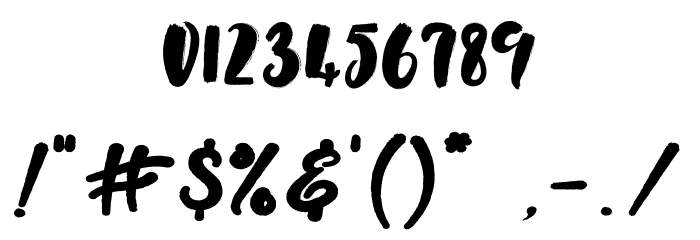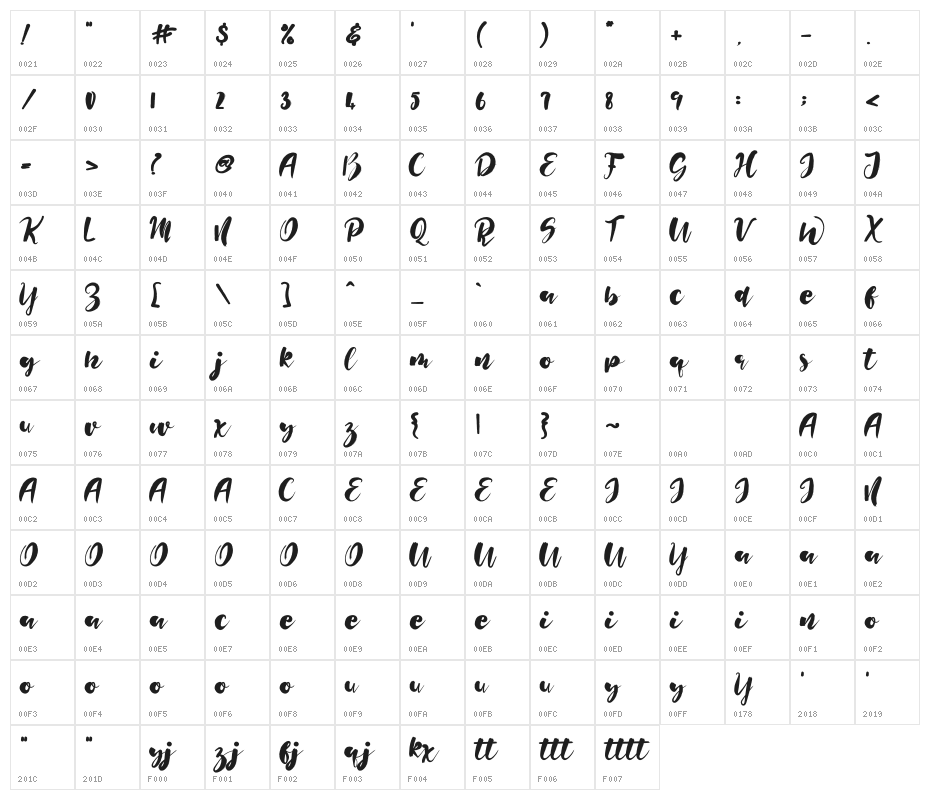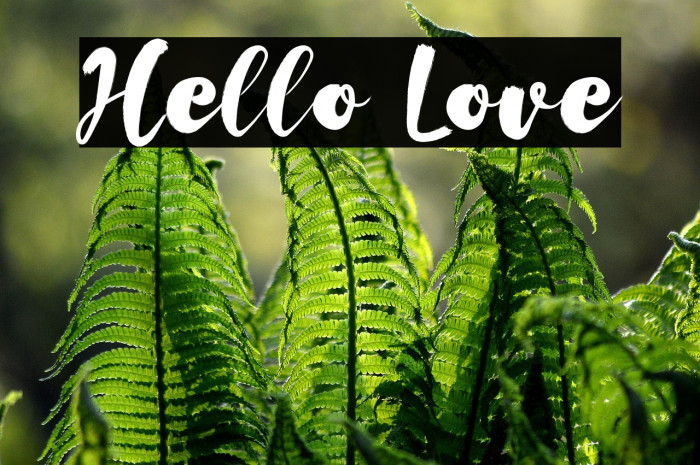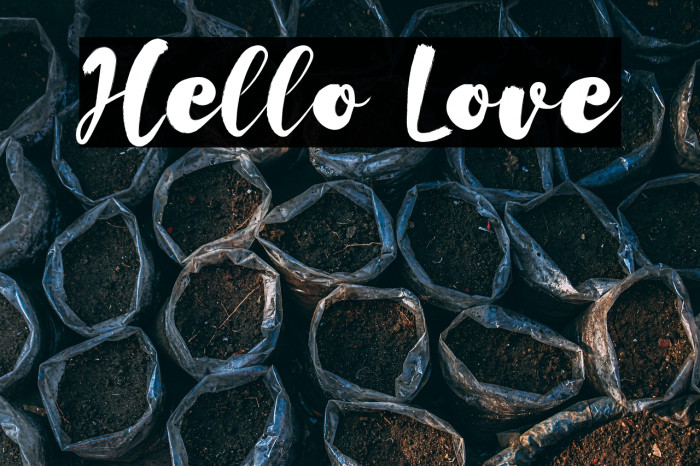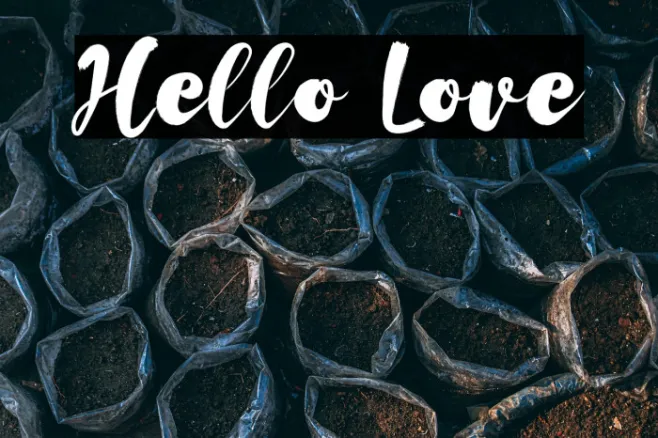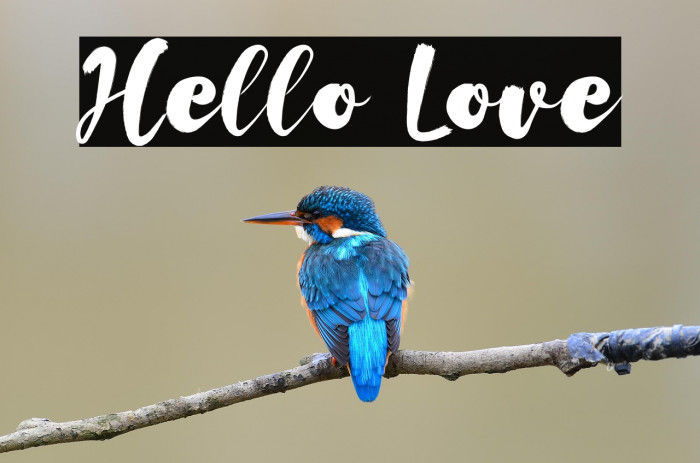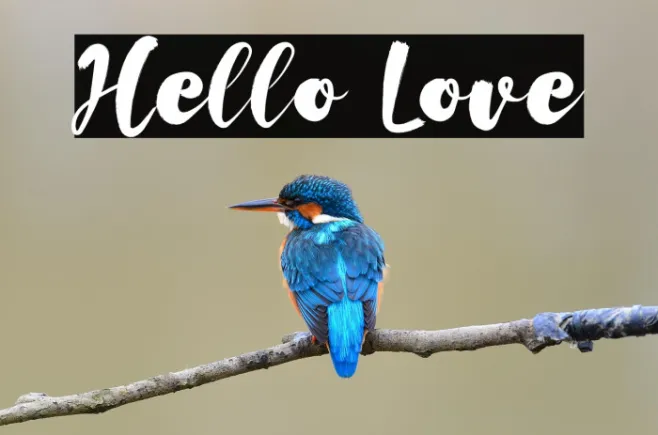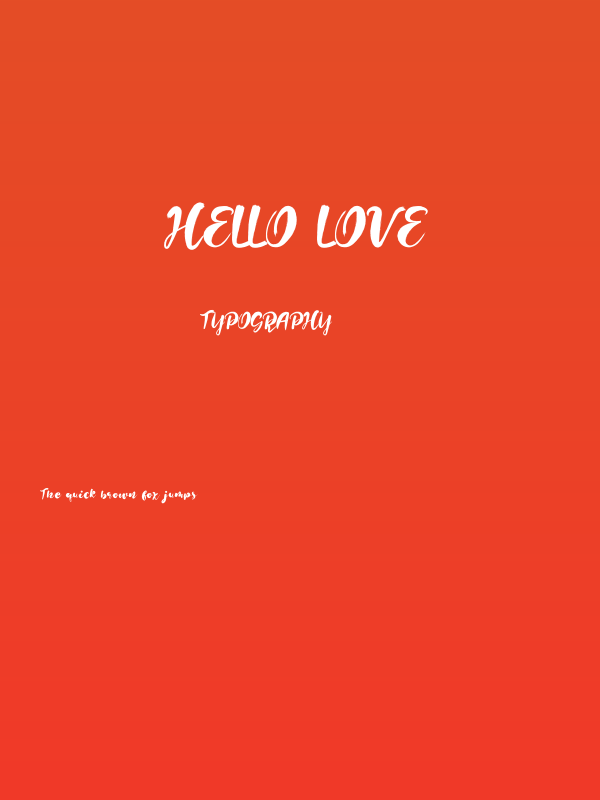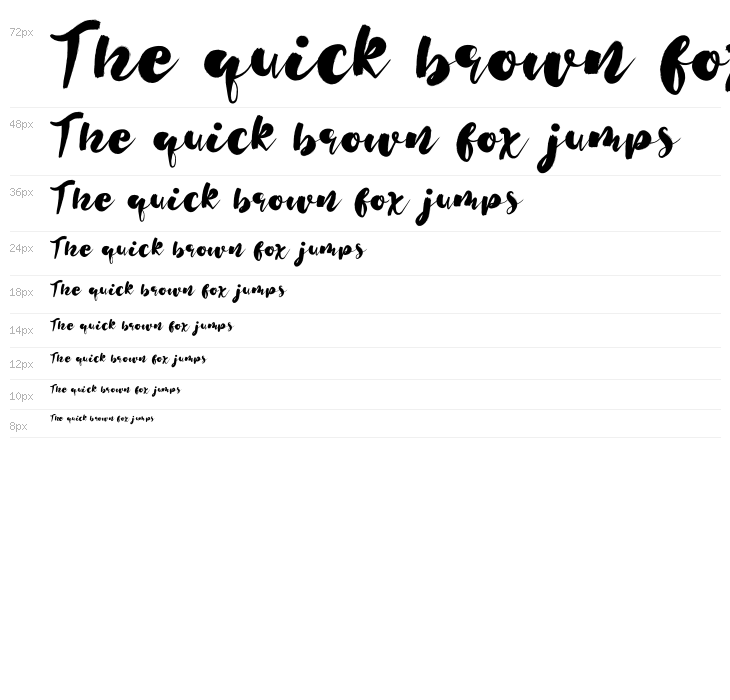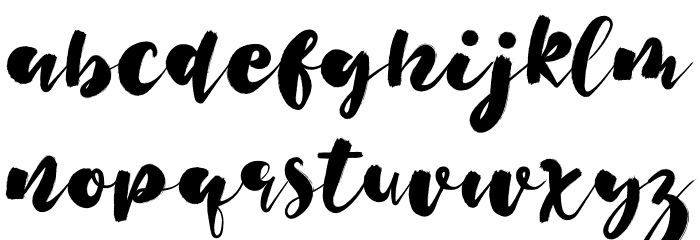
Hello Love Font
Hello Love Description
This font features a bold and expressive script style, characterized by its flowing, cursive letters that mimic the fluidity of hand-drawn calligraphy. The strokes are thick and dynamic, with a high contrast between the thick and thin parts, giving it a lively and energetic appearance. The uppercase letters are particularly ornate, with sweeping curves and loops, while the lowercase letters maintain a consistent rhythm and balance. The numerals and special characters are designed to match the overall aesthetic, ensuring a cohesive look across all text. This font is perfect for adding a personal, artistic touch to any design.